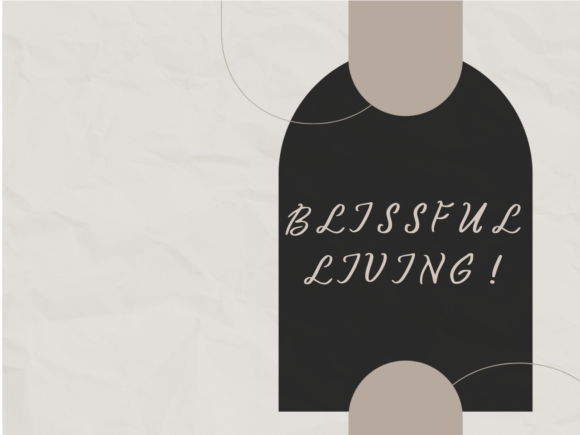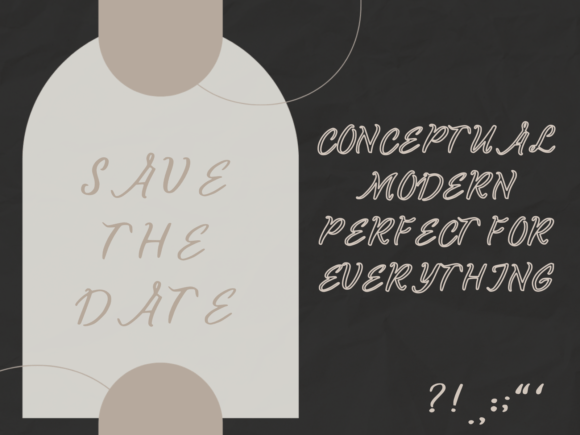
Introducing Epiphany Font: Elevate Your Designs with Elegance and Sophistication
In the world of typography, fonts play a crucial role in conveying the tone and personality of a design. For designers and crafters seeking a touch of elegance and sophistication, the Epiphany Font is an exceptional choice. This amazing handwritten font boasts a fashionable style with its own unique flow, making it perfect for a wide range of design projects.
The Epiphany Font: A Fashionable and Sophisticated Choice
Epiphany is a beautifully crafted handwritten font that exudes a sense of luxury and refinement. Its elegant flow and sophisticated style make it an ideal choice for designers looking to add a touch of glamour to their work. Whether you’re working on branding projects, logos, wedding designs, social media posts, advertisements, or product packaging, Epiphany Font is sure to impress.
Key Features of Epiphany Font
- Handwritten Style: Epiphany Font features a beautiful handwritten style that adds a personal touch to any design.
- Elegant Flow: The font’s elegant flow makes it perfect for designs that require a sense of sophistication and refinement.
- Fashionable and Sophisticated: Epiphany Font is designed to be fashionable and sophisticated, making it perfect for high-end designs.
- Versatile: This font can be used for a wide range of design projects, from branding and logos to wedding designs and social media posts.
Epiphany Font is a versatile font that can be used by designers and crafters for various projects. Its elegant style makes it perfect for:
- Branding Projects: Create a lasting impression with Epiphany Font, perfect for logos, business cards, and other branding materials.
- Wedding Designs: Add a touch of elegance to your wedding designs, including invitations, programs, and decorations.
- Social Media Posts: Elevate your social media posts with Epiphany Font, perfect for creating engaging and stylish content.
- Advertisements: Make your advertisements stand out with Epiphany Font, ideal for creating eye-catching and sophisticated ads.
- Product Packaging: Add a touch of luxury to your product packaging with Epiphany Font, perfect for high-end products.
Why Choose Epiphany Font?
With so many fonts available, why choose Epiphany Font? Here are a few reasons:
- Unique Style: Epiphany Font features a unique and elegant style that sets it apart from other fonts.
- High-Quality Design: The font is designed with high-quality and precision, ensuring that it looks great in any design.
- Easy to Read: Despite its elegant style, Epiphany Font is easy to read, making it perfect for body text and headlines.
- Versatile: Epiphany Font can be used for a wide range of design projects, making it a great addition to any designer’s toolkit.
In conclusion, Epiphany Font is an exceptional choice for designers and crafters seeking a fashionable and sophisticated font. Its elegant flow and unique style make it perfect for a wide range of design projects, from branding and logos to wedding designs and social media posts. With its high-quality design and versatility, Epiphany Font is sure to elevate your designs and add a touch of luxury to your work.
Get Ready to Elevate Your Designs with Epiphany Font